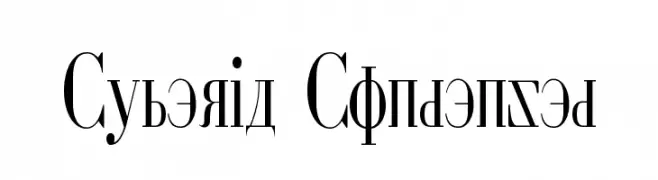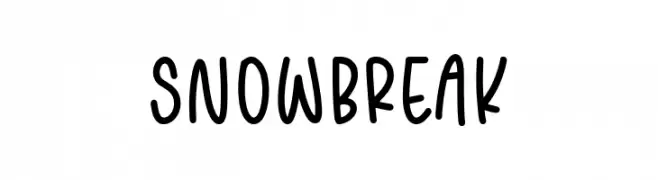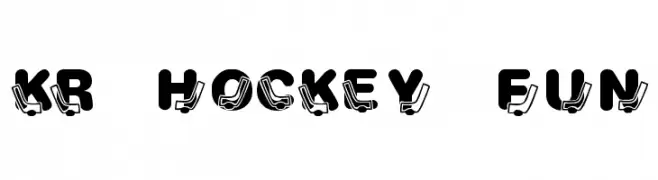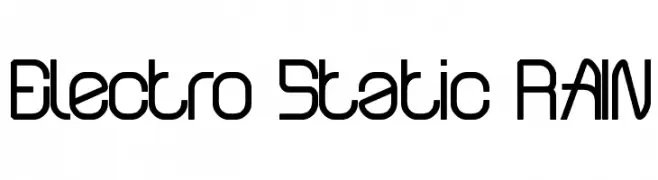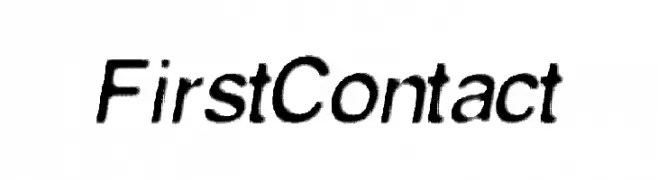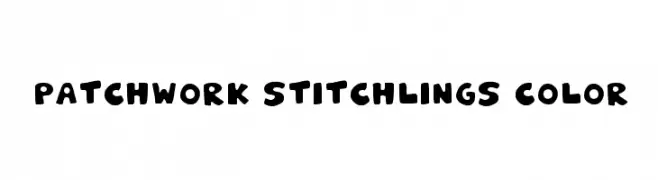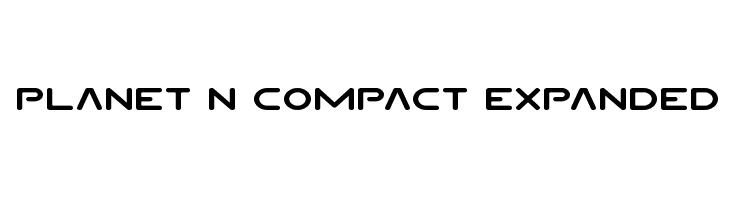
A playful, handwritten font with rounded, consistent strokes and a casual feel.
A modern, clean sans-serif font with balanced proportions and excellent readability.
A bold, uniform font with thick strokes and a strong presence.
A bold, hockey-themed decorative font with sporty elements.
A decorative, futuristic font with angular, geometric shapes and dynamic style.
A modern, italicized font with a sleek and dynamic appearance.
A playful, handcrafted font with bold, rounded characters and a stitched appearance.